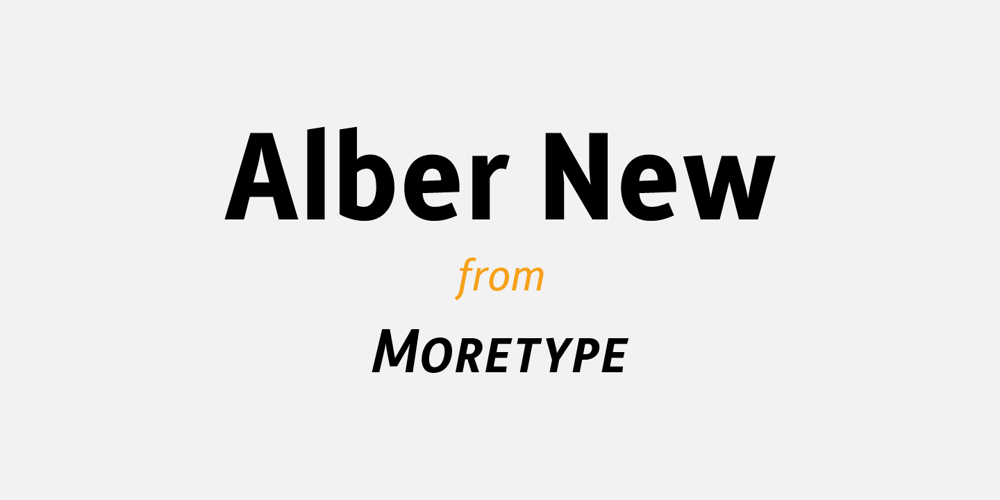
Alber New Font Family was designed by Chris Dickinson and published by moretype. Alber New contains 8 styles and family package options. Alber New is the revamped version of Alber originally released in 2006. While retaining its original appeal Alber New has been overhauled from the ground up with improved outlines, spacing and kerning. Alber New also boasts an extending character set including small caps, subscript and superscript allowing it to cope with the most demanding of jobs.